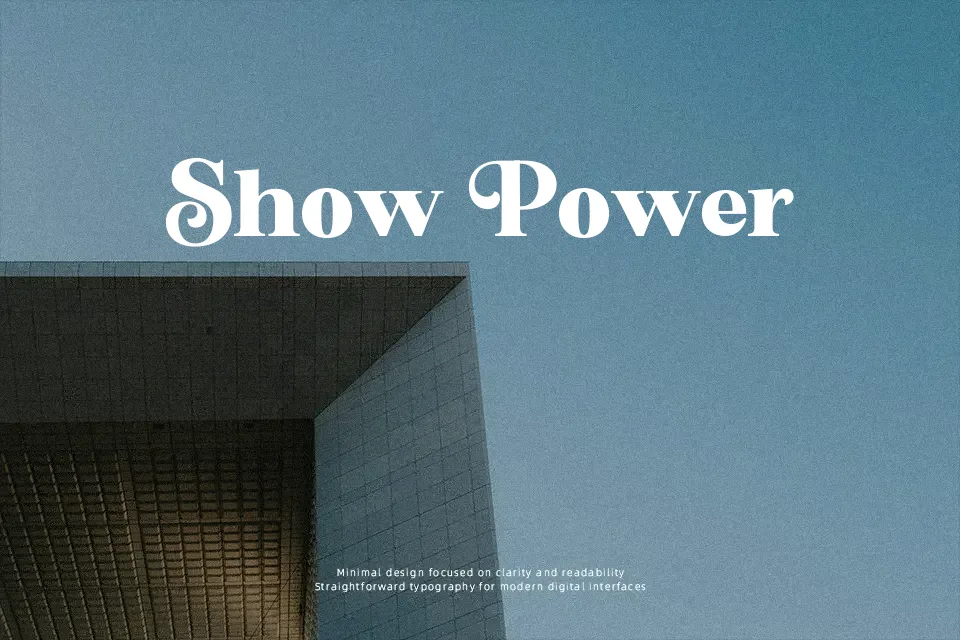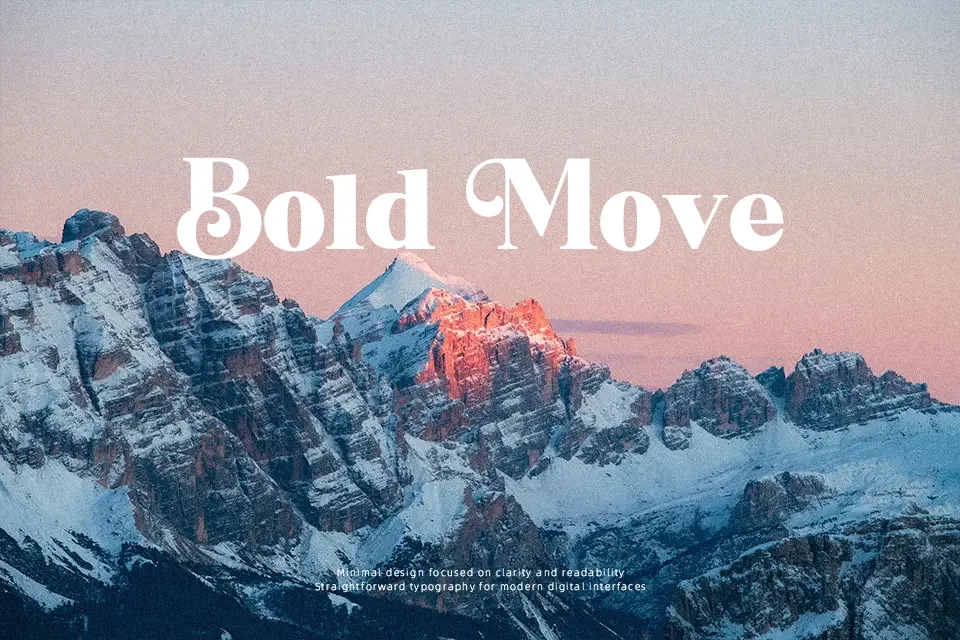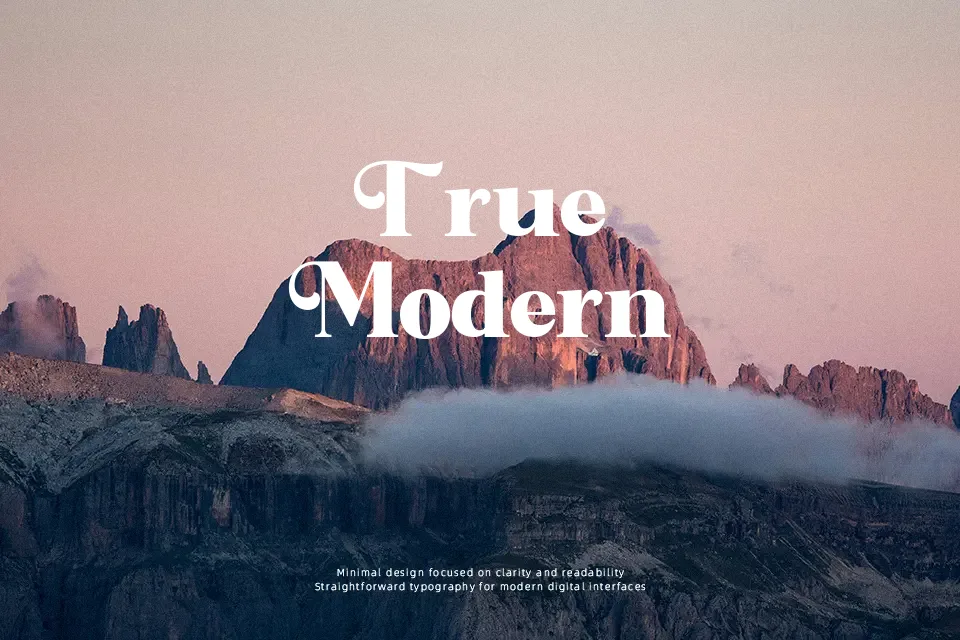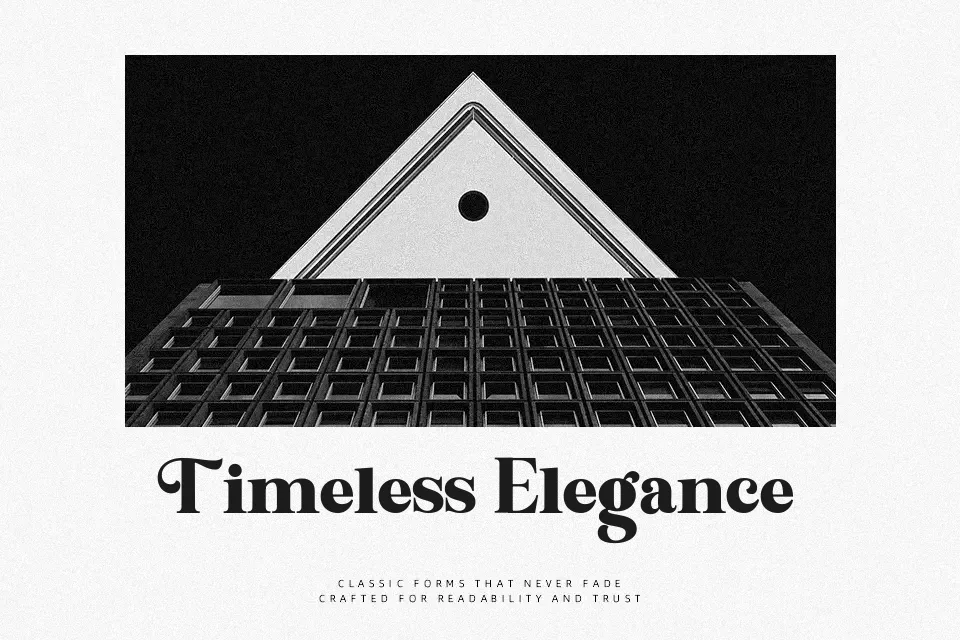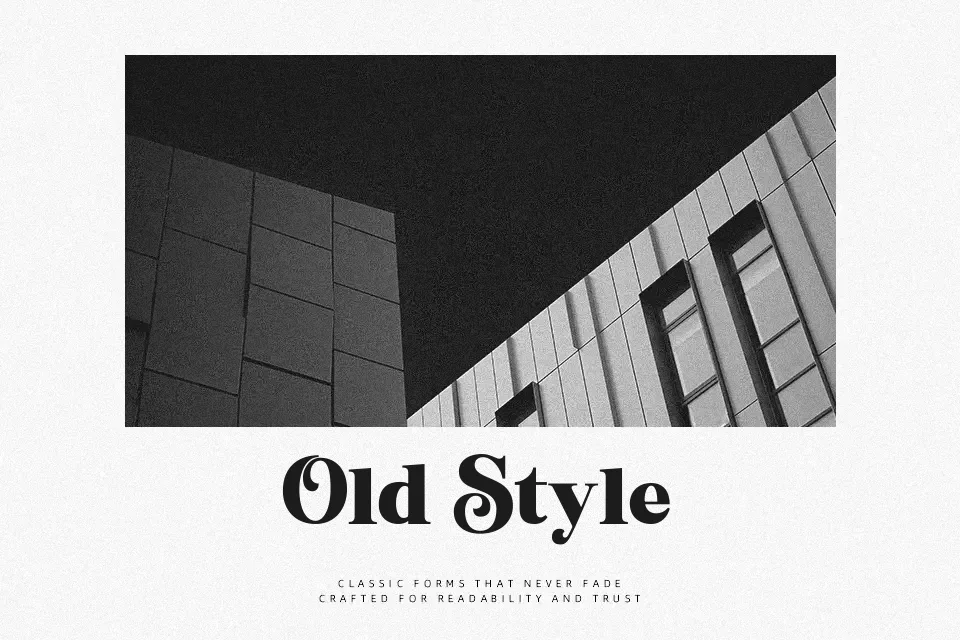
Brodies Font
Brodies combines a classic serif skeleton with smooth curves and slightly curled stroke endings, so it feels polished but not stiff. The weight sits in a comfortable mid-range, with compact proportions and even spacing that keep text readable at medium sizes while still looking like a display face. In use, it brings a bright, approachable energy to headlines, magazine mastheads, food and beverage labels, and advertising where you want something more characterful than a neutral serif. For dense body copy, minimalist tech products, or ultra-formal identities, the friendly curls can feel a bit too playful, so it works best as an accent typeface rather than a workhorse text family.
warm editorial headlines and pull quotes
food and beverage packaging with a friendly tone
logo wordmarks that need structured yet approachable serifs
advertising layouts that balance clarity with personality
long body text in books or reports
strictly minimal or tech-focused branding
highly formal corporate or legal documents
very small UI labels or dense data tables
Perfect for advertising, branding, and editorial, with a artistic and display style.